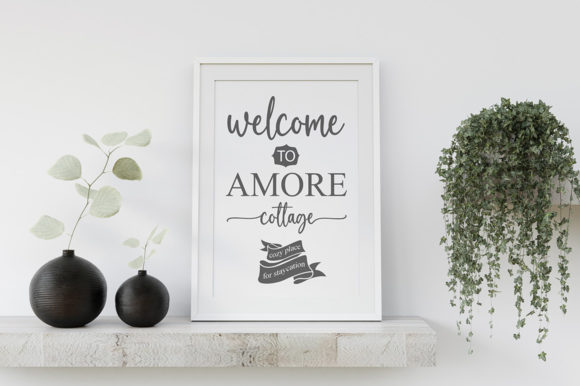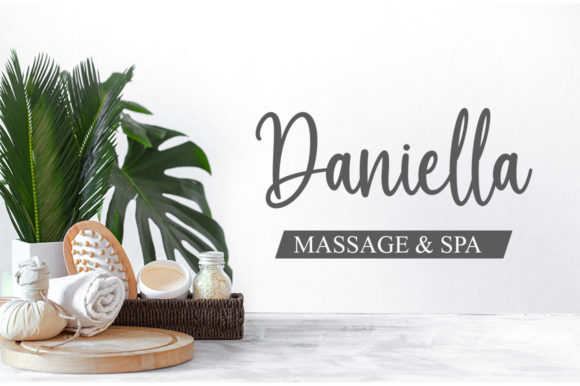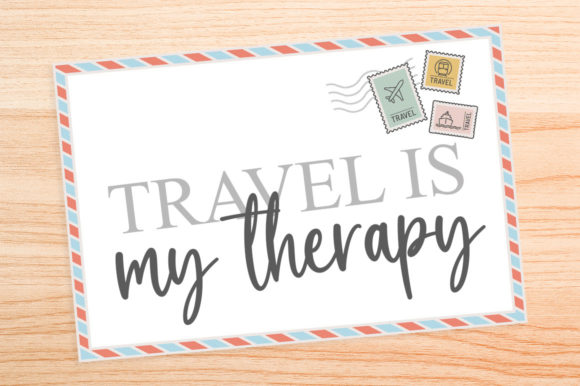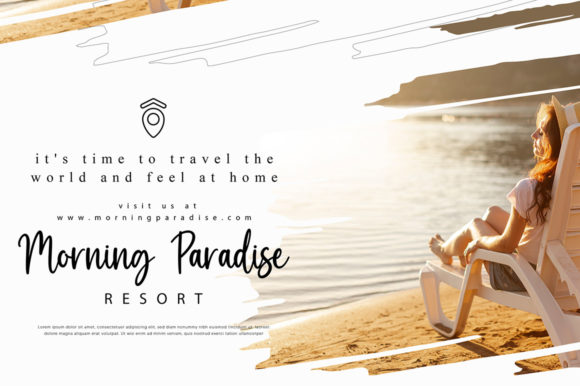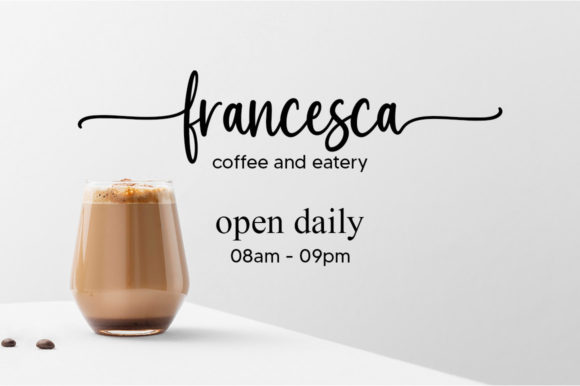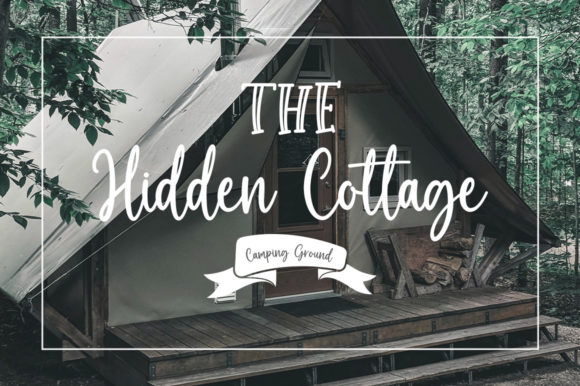
Uncovering the Charm of Hidden Cottage Font
As a designer, there’s nothing quite like that moment when a new font catches your eye and sparks a wave of creativity. You’re browsing through a typography library, scrolling through font collections, and suddenly, you stumble upon it – the perfect match for your next project. For many designers, this moment is what drives them to bring their ideas to life.
Hidden Cottage Font is one such gem that has captured the hearts of many designers. This elegant script font is designed to add a touch of whimsy and sophistication to any design project. From wedding invitations to business cards, Hidden Cottage Font is the perfect choice for those looking to add a handwritten feel to their work.
With its unique charm and versatility, Hidden Cottage Font is a valuable addition to any designer’s toolkit. Whether you’re a seasoned pro or just starting out, this font is sure to bring your designs to life and leave a lasting impression on your audience.
Hidden Cottage Font Key Features
- Unique Characteristics: The Hidden Cottage Font features a whimsical, hand-drawn design with subtle imperfections, giving it a warm and inviting feel.
Designer Review: Hidden Cottage Font
Hidden Cottage Font is a charming, handwritten font that adds a touch of whimsy to any design project. Here’s my honest review:
- Unique, hand-drawn feel that’s perfect for creating a personal, handmade look.
- Excellent for use in titles, headings, and short blocks of text where a more casual tone is desired.
- Good legibility, even at smaller font sizes, making it suitable for body text.
- A wide range of styles and variations to choose from, allowing for a lot of creative flexibility.
- Not ideal for large blocks of text, as the font’s irregularities can become overwhelming.
- May not be the best choice for formal or corporate designs, where a more polished look is desired.
- Some characters may not be perfectly legible at very small font sizes.
Overall, Hidden Cottage Font is a great addition to any designer’s toolkit, especially for projects that require a touch of personality and charm. Just be mindful of its limitations and use it thoughtfully to get the best results.
Tips for getting the most out of Hidden Cottage Font in Canva: Use it to create whimsical and romantic designs, such as wedding invitations or baby shower decorations.
Tips for getting the most out of Hidden Cottage Font in Adobe Photoshop or Illustrator: Use it to create intricate and detailed typography, such as invitations or book covers.
Tips for getting the most out of Hidden Cottage Font in PowerPoint or Word: Use it to create elegant and sophisticated presentations or documents, such as business reports or academic papers.
Hidden Cottage Font is ideal for:
- Wedding invitations and decorations
- Baby